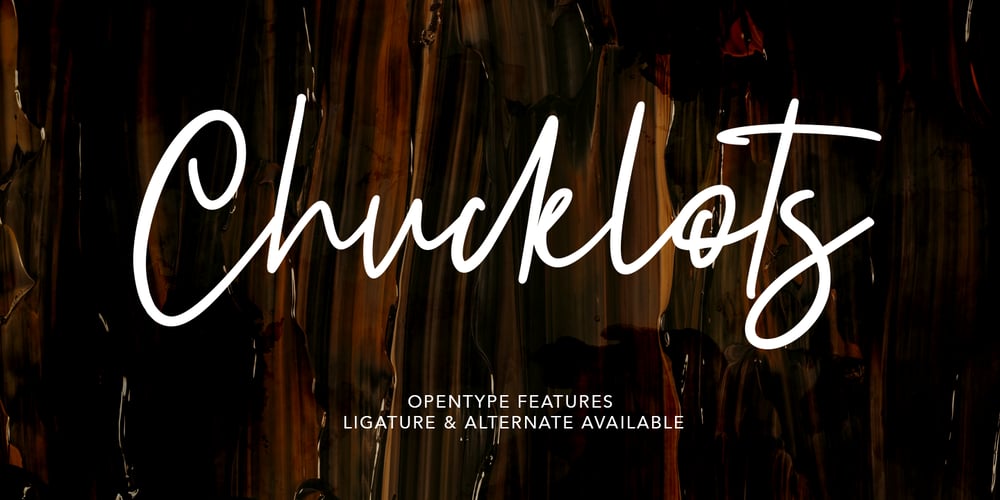
Chucklots Font Family was designed by Gilang Maulana and published by Maulana Creative. Chucklots contains 1 styles and family package options. Give your designs an authentic brush handcrafted feel. “Chucklots Handwritten Script Font” is perfectly suited to signature, stationery, logo, typography quotes, magazine or book cover, website header, flyer, clothing, branding, packaging design and more.